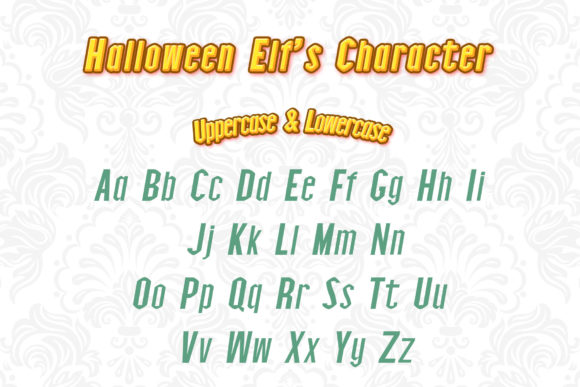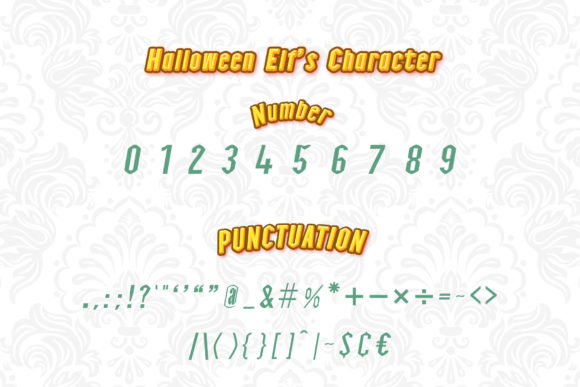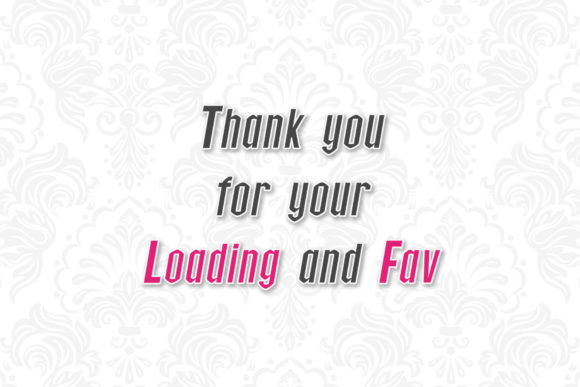
Introduction to Halloween Elf Font
Halloween Elf is a vintage styled and bold sans serif font.
Fall in love with its incredibly powerful vibe and level up your upcoming projects .
Key Features of Halloween Elf Font